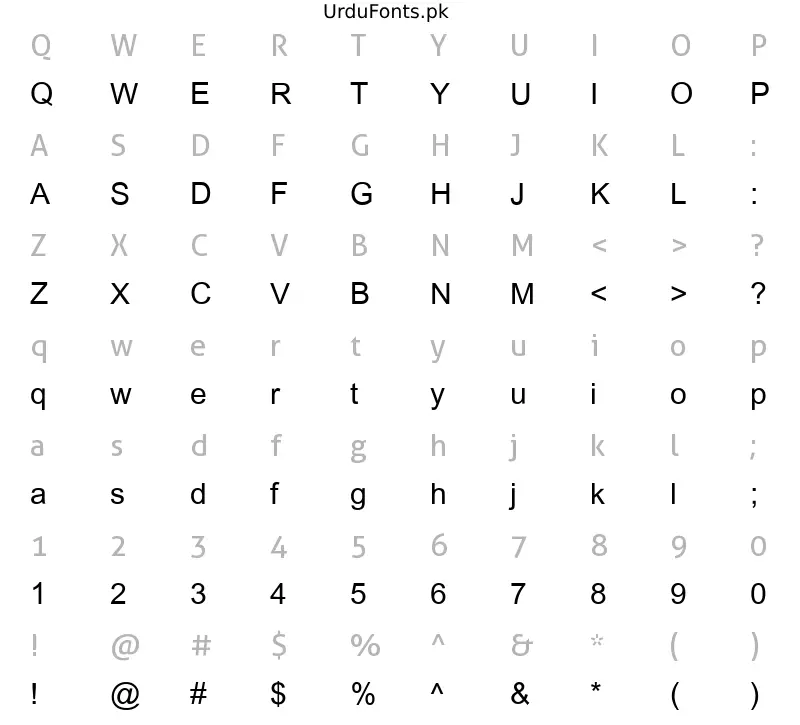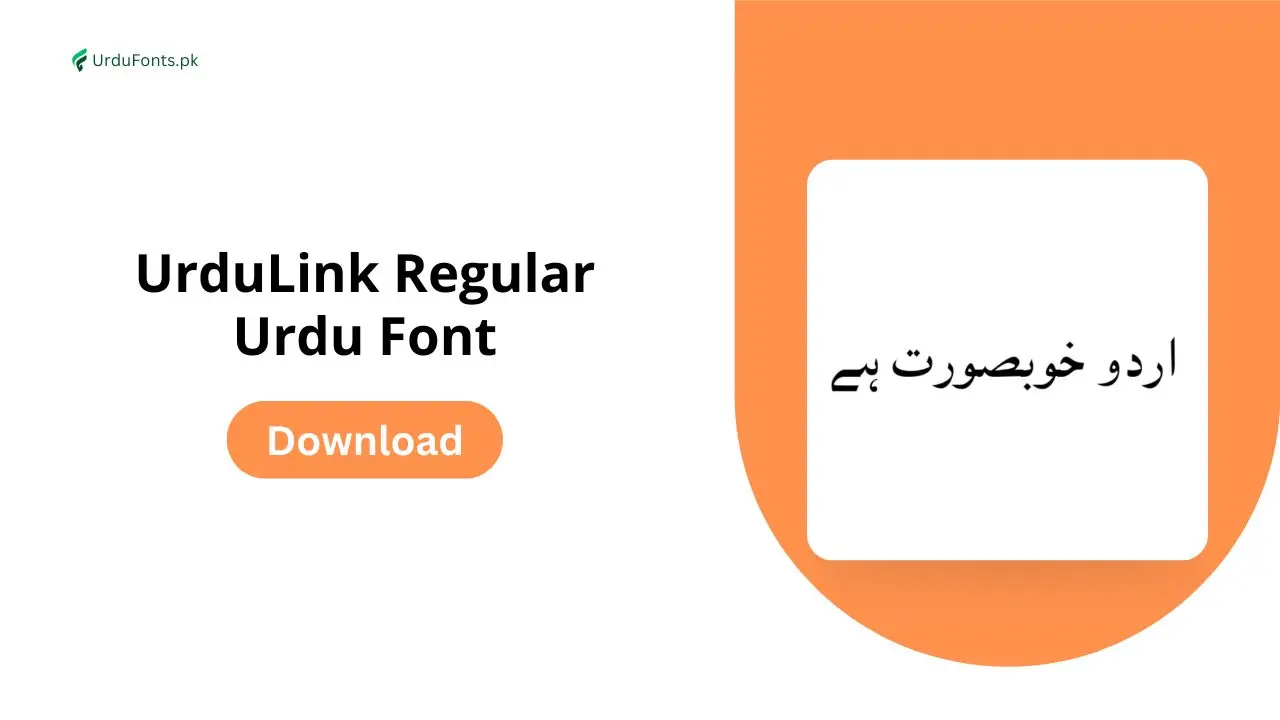
UrduLink Regular Urdu font emerges as a versatile solution for Urdu text in the digital world, offering a perfect blend of readability and aesthetic appeal. This article explores the font’s distinctive features, its wide-ranging applications, and how to download it.
What is UrduLink Regular?
UrduLink Regular Urdu font is a meticulously crafted digital typeface designed to enhance Urdu communication across various digital platforms. It maintains the essence of traditional Urdu script while optimizing for screen readability and modern design requirements.
UrduLink Regular is engineered for seamless integration across a wide array of software applications and operating systems. Its robust design ensures consistent display across different platforms, making it an ideal choice for cross-device projects.
The font’s optimized design for screen display makes it particularly valuable for web-based projects and mobile applications. Whether you’re developing a news website, creating a mobile app, or designing digital marketing materials, UrduLink Regular provides the flexibility and visual appeal needed to make your Urdu content stand out.
Key Features
- Optimized for digital displays of all sizes
- Comprehensive character set covering the full range of Urdu script
- Clean, crisp letterforms for enhanced legibility
- Smooth rendering across different devices and resolutions